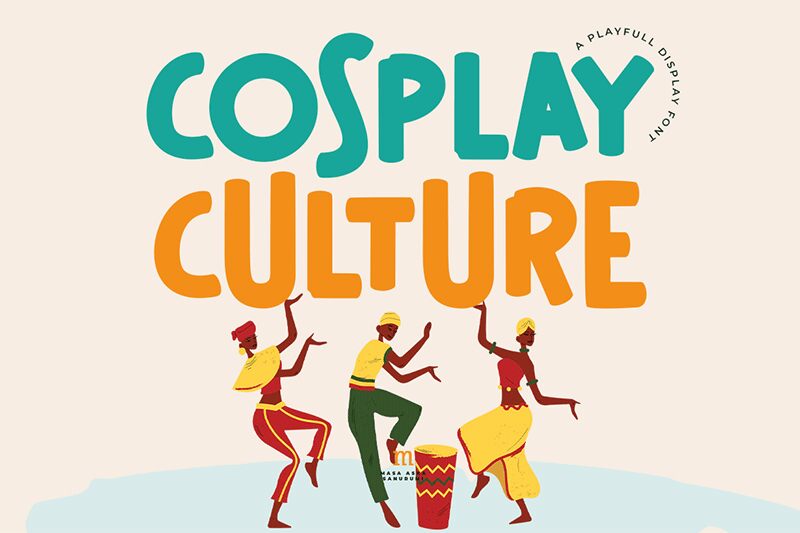
Cosplay Culture, a brainchild of font designer Masa Aska Sanurumi, stands out as a playful yet impactful display font with its comic style and semi-bold weight. This typeface boasts a semi-condensed width that strikes the perfect balance between space-saving efficiency and legibility. The rounded curves and whimsical lines exude a sense of fun and creativity, making it an ideal choice for projects that aim to capture the essence of joy and playfulness.
Cosplay Culture's aesthetic appeal lies in its ability to evoke the lively spirit often found in comic book dialogue while maintaining an approachable readability. Its unique characteristics lend themselves beautifully to various creative endeavors such as event posters, animated web content, or any platform seeking to infuse a touch of lightheartedness without sacrificing sophistication.
The versatility of Cosplay Culture is evident through its potential applications across multiple mediums. Whether you're designing for print materials or digital interfaces, this font is poised to add personality and charm to your work. Embrace Cosplay Culture in your next project to harness the energy and enthusiasm it embodies.